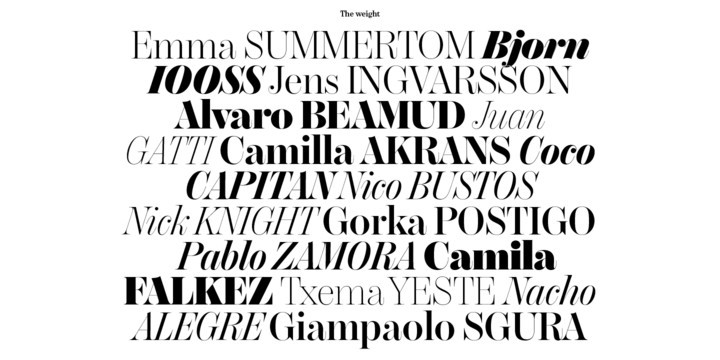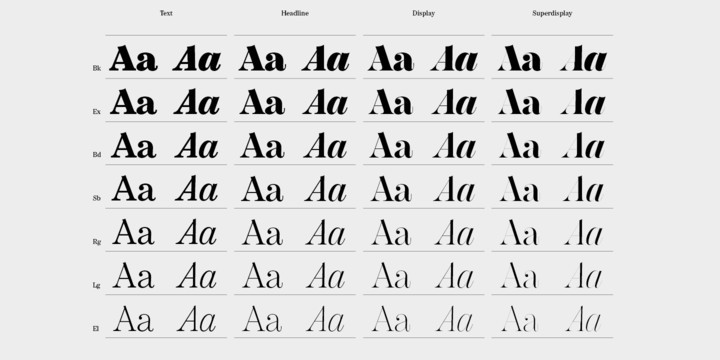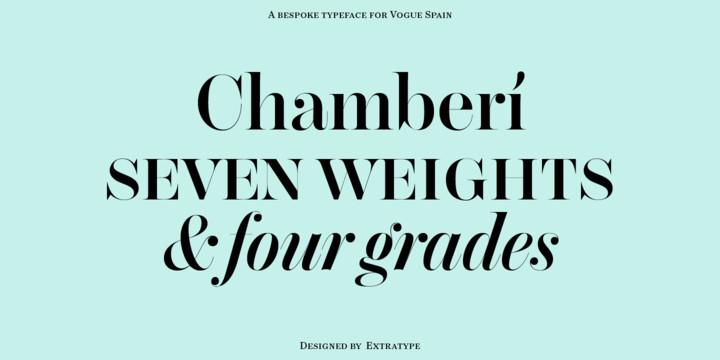
Chamberí Font
Chamberí is designed to be Vogue España’s bestpoke typeface. An ambitious typographic branding project made for one of the most iconic magazine headers of the world, it defines the Spanish edition’s personality through a blending of the functionality of XIX Century Modern Romans (also known as “Scotch” typefaces) and the gestural expressiveness of typographic Baroque. Chamberí is a peculiar combination of the rational and the delicate, the sturdy and the feminine. The family is organised in a broad spectrum of 56 variants in which the transition from the restrained text version to the flamboyant, elegant display is modulated by contrast. The family is organised in seven weights: from Extra Light to Black, plus four contrast grades: Text, Headline, Display and Superdisplay. All this with its own Italics, Small Caps and Old Style Figures, besides the due refinement to resolve any editorial and communicative requirement.